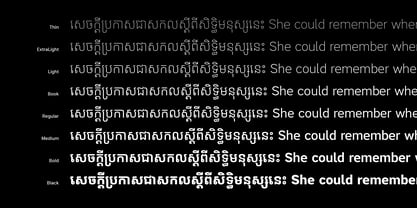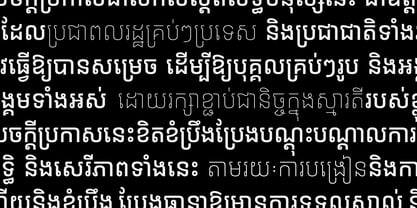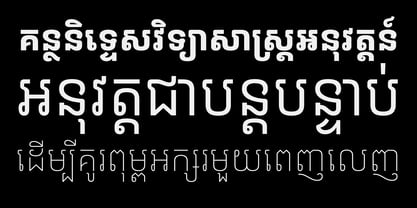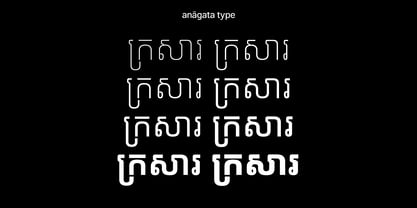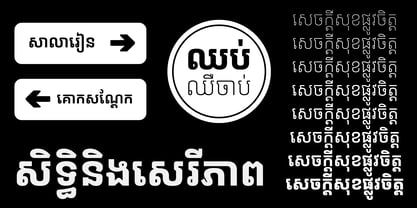
Krasar
by Anagata Type
The Krasar Font Family was designed by Sovichet Tep and published by Anagata Type. Krasar contains 8 styles and family package options. More about this family
Krasar is a humanist Khmer font family designed with simplified letterforms that enhance readability for long texts on both screen and paper. The overall letterform draws inspiration from the fluid movements of handwriting, where knots and loops seamlessly connect to the stem in a continuous stroke. Since its introduction in 2018, Krasar has become a preferred typeface among designers and Cambodian corporations for their branding and identity projects. This versatile font family offers 8 weights, ranging from Thin to Black, providing users with a wide selection to suit various design needs.
Designers: Sovichet Tep
Foundry: Anagata Type